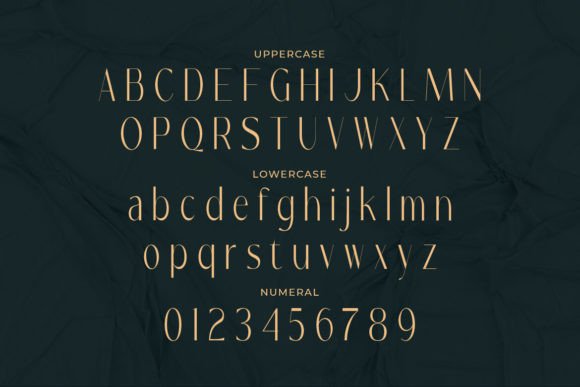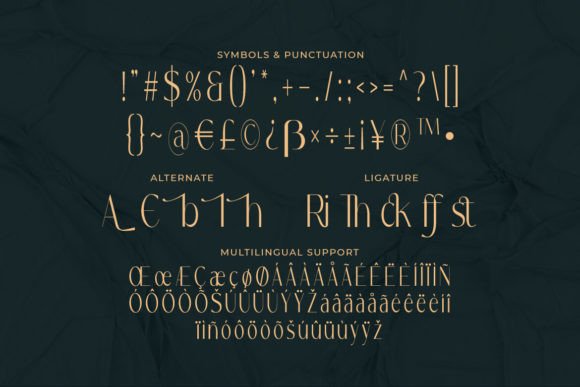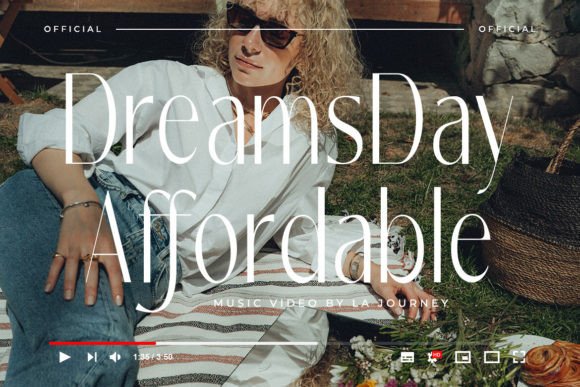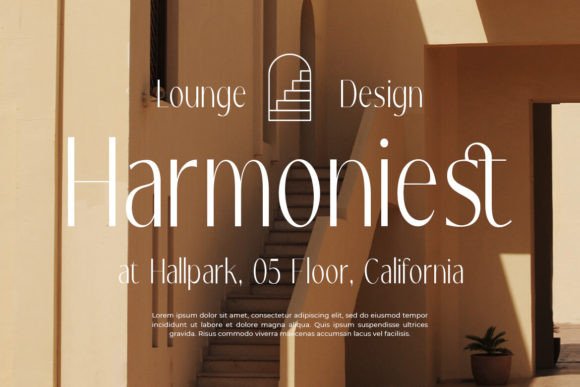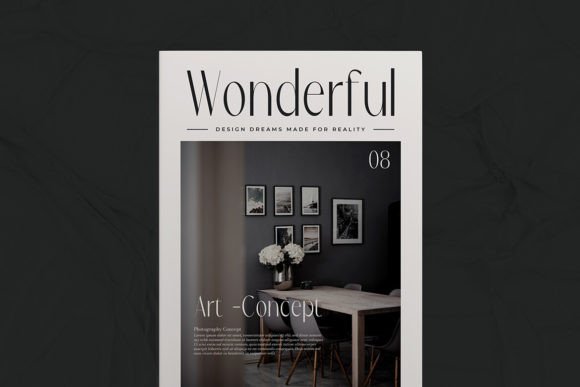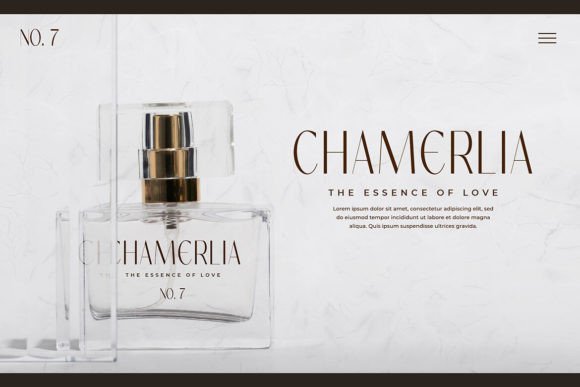
Introduction to Riesborck Font
You’ve spent hours poring over design inspiration, pouring your heart into a project, and finally, it’s time to add the finishing touches. But, you’re stuck on the perfect font to bring your vision to life. That’s where the Riesborck Font comes in – a game-changing design resource that’s about to revolutionize your creative workflow. This sleek, modern sans serif font is the perfect companion for any high-quality design project, from branding and editorial layouts to web design and beyond.
With its slim letterforms and clean lines, the Riesborck Font effortlessly elevates your designs with its unique and refined design. Whether you’re working on a free download or a paid project, this versatile font is sure to make a statement. Plus, its transparent background makes it easy to work with, allowing you to focus on the creative aspects of your project without worrying about complicated design elements.
Key Features of Riesborck Font
- Features a transparent background, allowing for seamless integration into any design.
- Includes multiple styles and weights, providing flexibility for designers to choose the perfect fit.
- Designed with high-resolution graphics, ensuring crisp and clear text at any size.
- Perfect for use in graphic design, digital art, and other creative projects where a distinctive font is required.
Honest Review: Riesborck Font
As a designer, I’m always on the lookout for high-quality design resources to elevate my creative projects. The Riesborck Font is one such find that has caught my attention. With a free download available, it’s a great starting point for designers of all levels.
- ✨ Unique Aesthetic: The Riesborck Font boasts a distinctive, handcrafted feel that adds a touch of personality to any design. Its intricate details and ornate flourishes make it perfect for projects that require a high level of sophistication.
- ✨ Customization Options: The font is available in various weights and styles, allowing designers to tailor their design to suit their specific needs.
- ✨ High-Quality Design: The Riesborck Font is meticulously crafted, with a transparent background that ensures seamless integration with any design element.
⚠️ However, the Riesborck Font does have some limitations. For instance, its lack of versatility in terms of font sizes can make it challenging to use in certain contexts. Additionally, the font’s ornate design may not be suitable for designs that require a more minimalist approach.
Overall, the Riesborck Font is a solid addition to any designer’s toolkit. While it may not be perfect for every project, its unique aesthetic and high-quality design make it a valuable resource for designers looking to add some flair to their creative projects.
Riesborck Font is commonly used in creative projects such as logo designs, brochures, and social media graphics. It is also used in presentations and reports to add a touch of professionalism and style. With its high-quality design and versatility, Riesborck Font is a valuable design resource for any creative project.